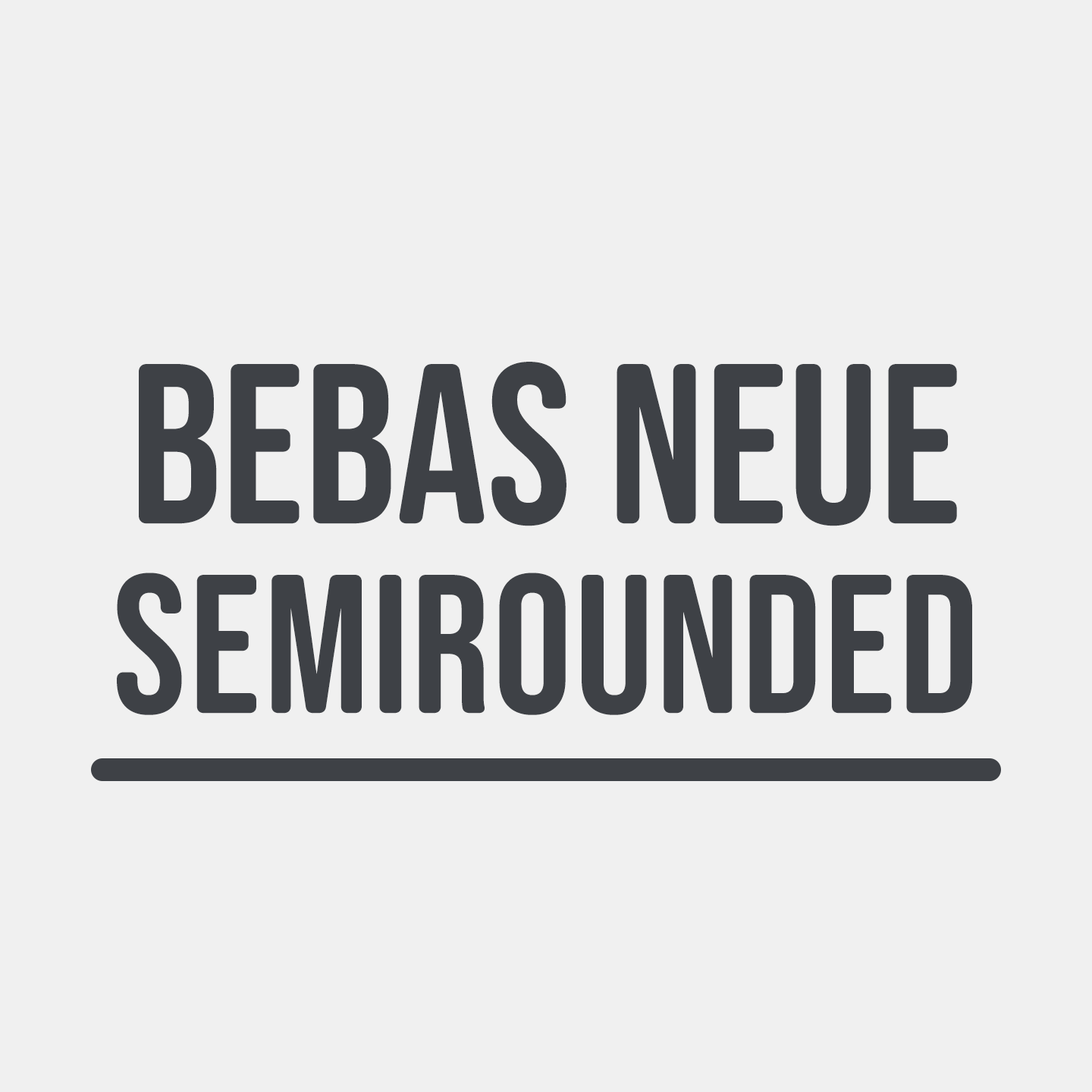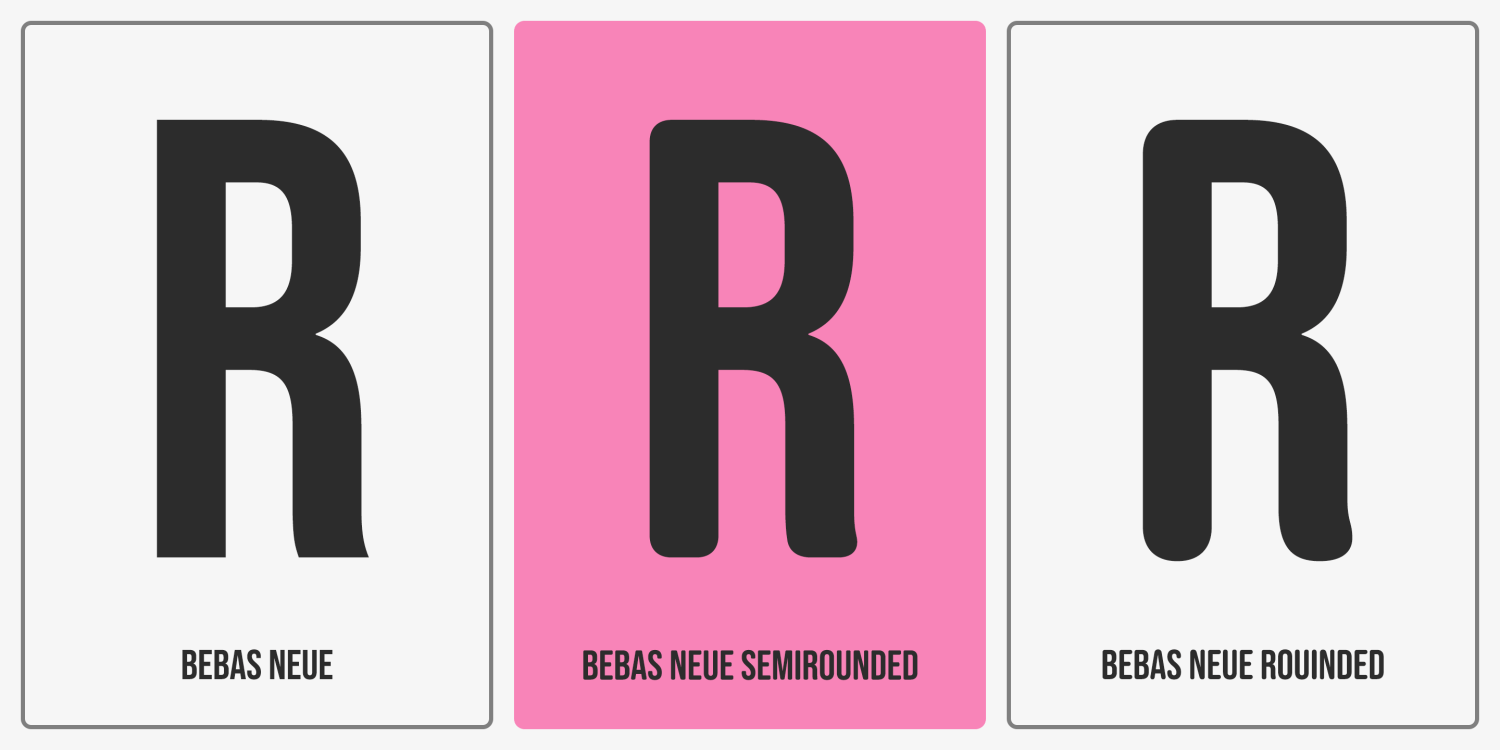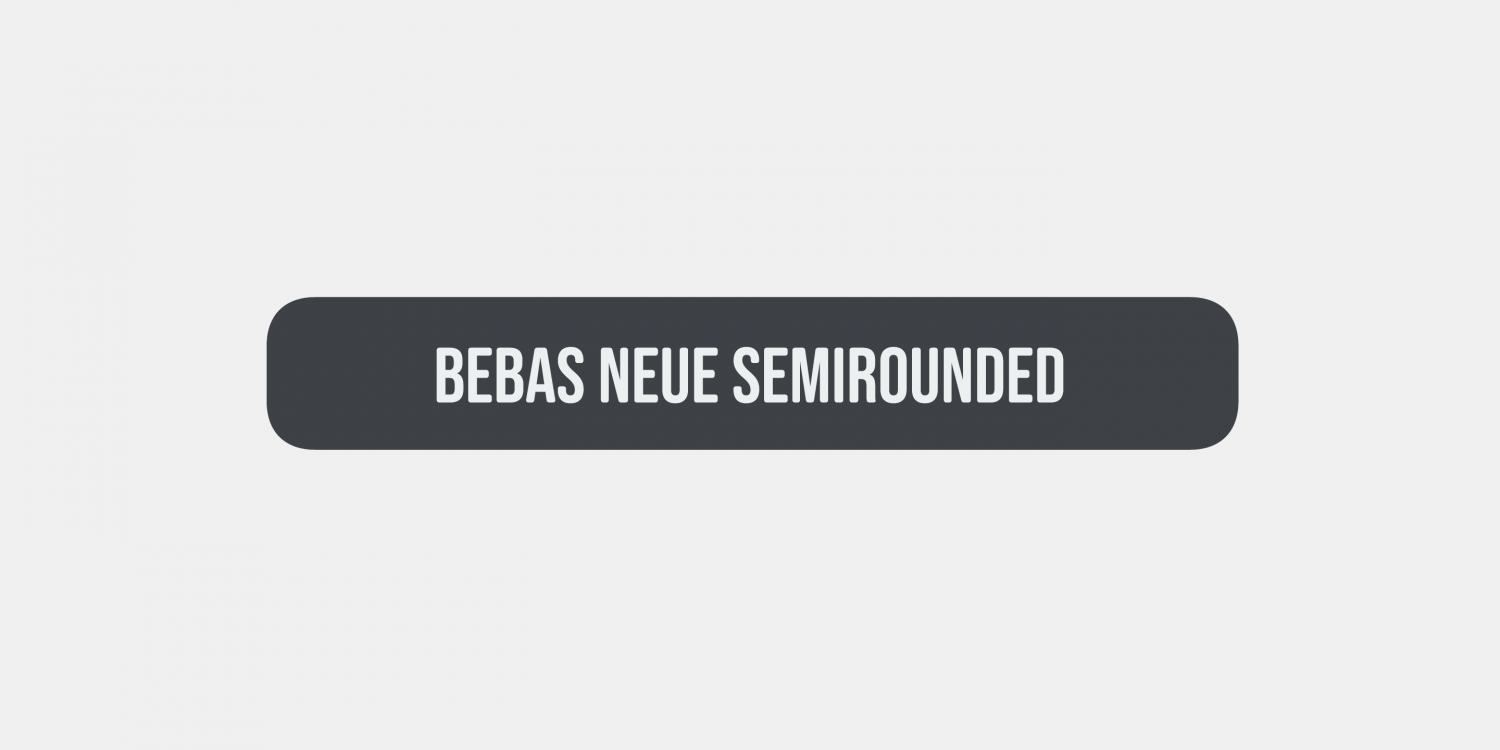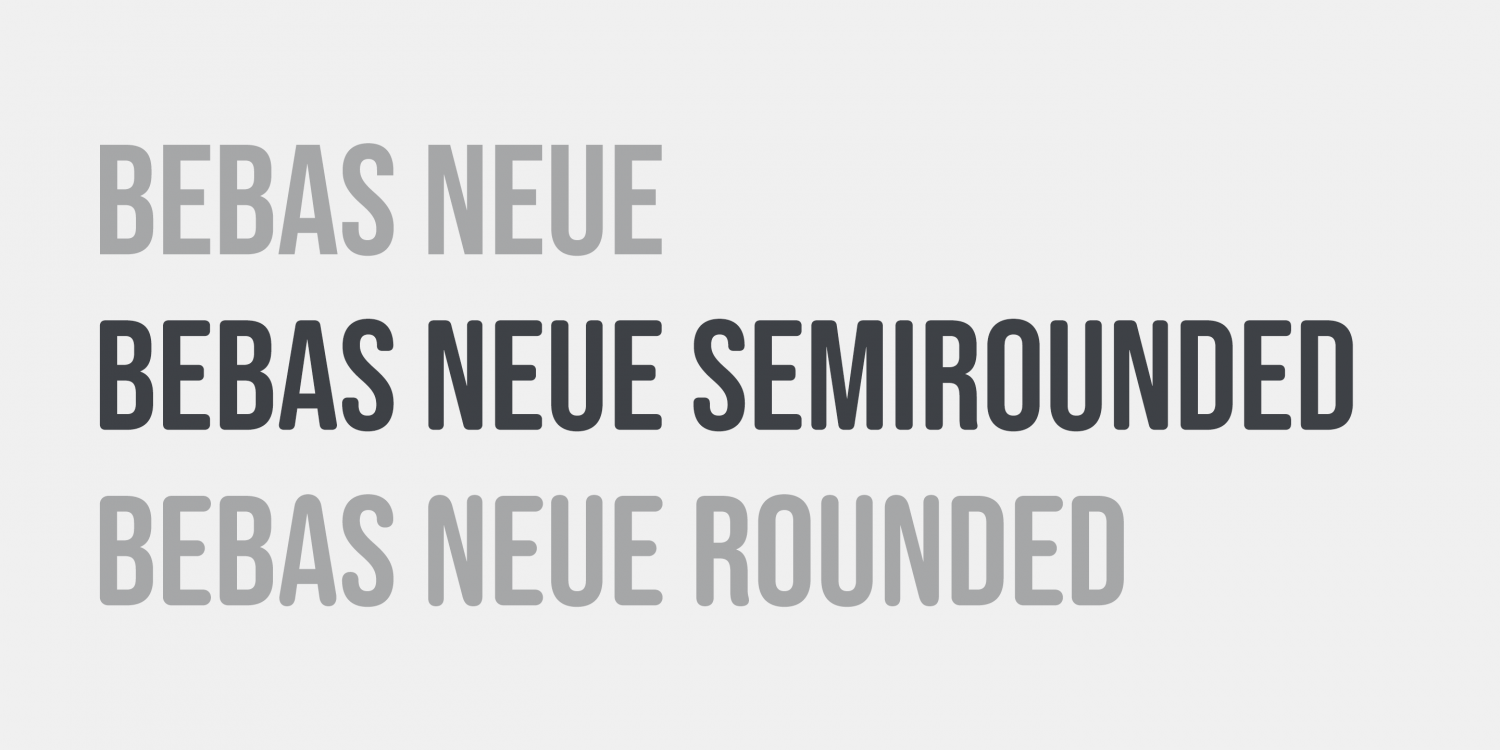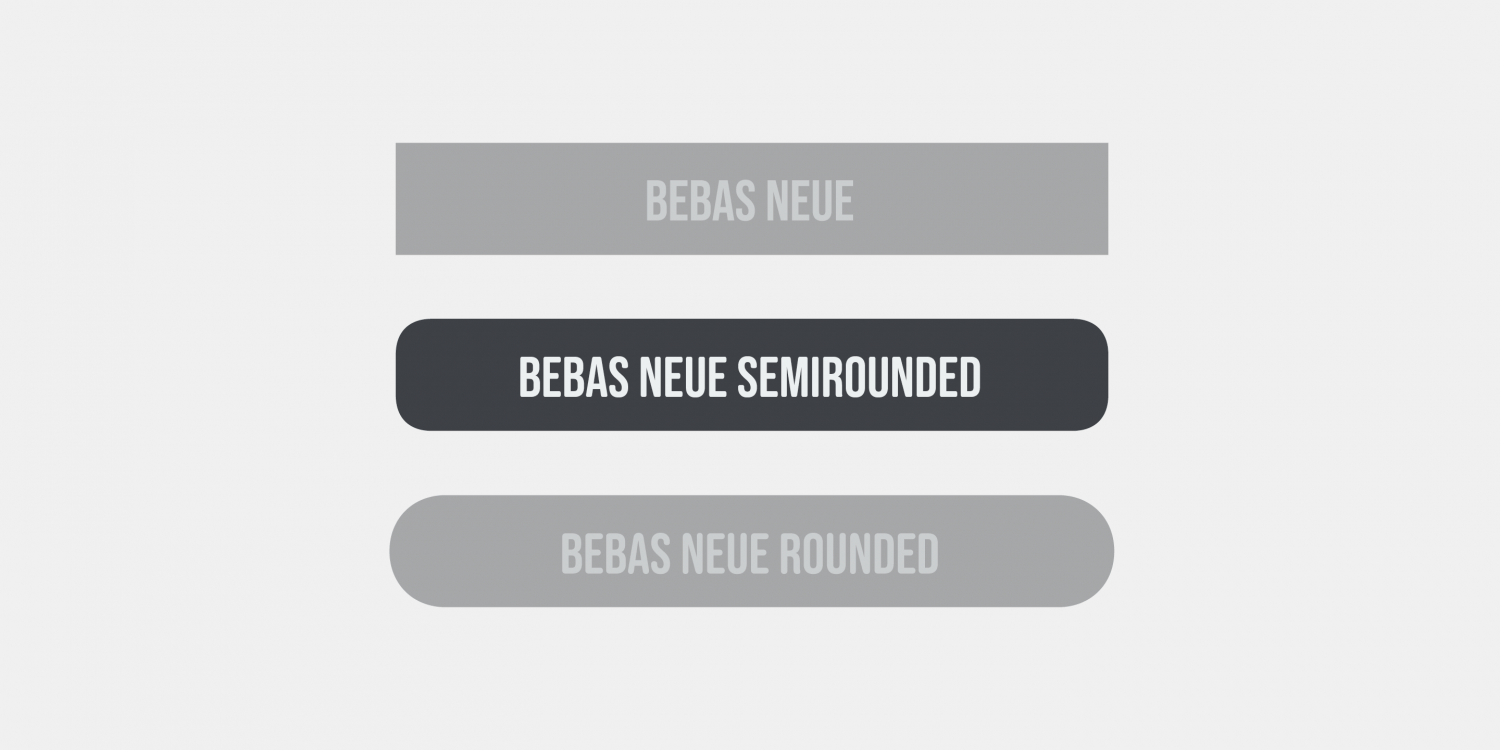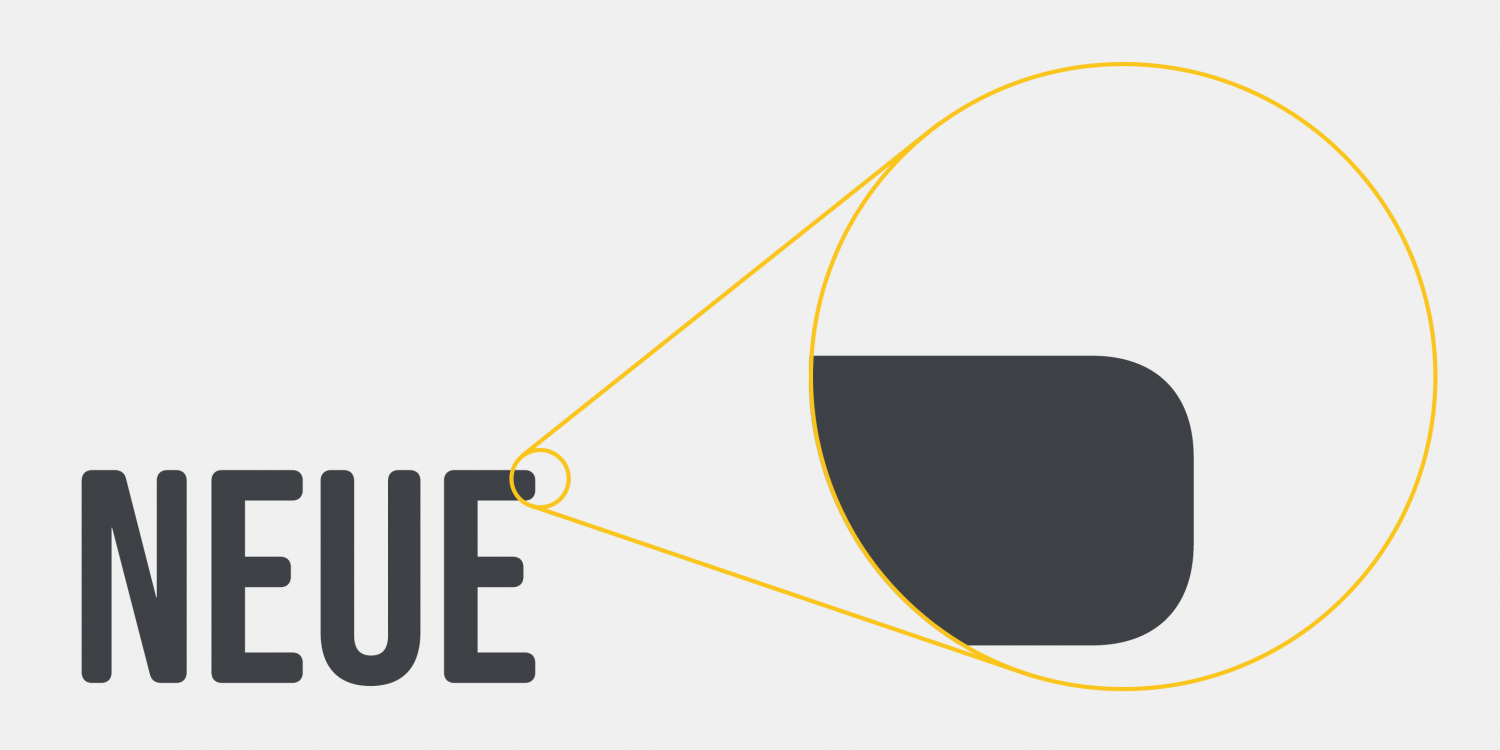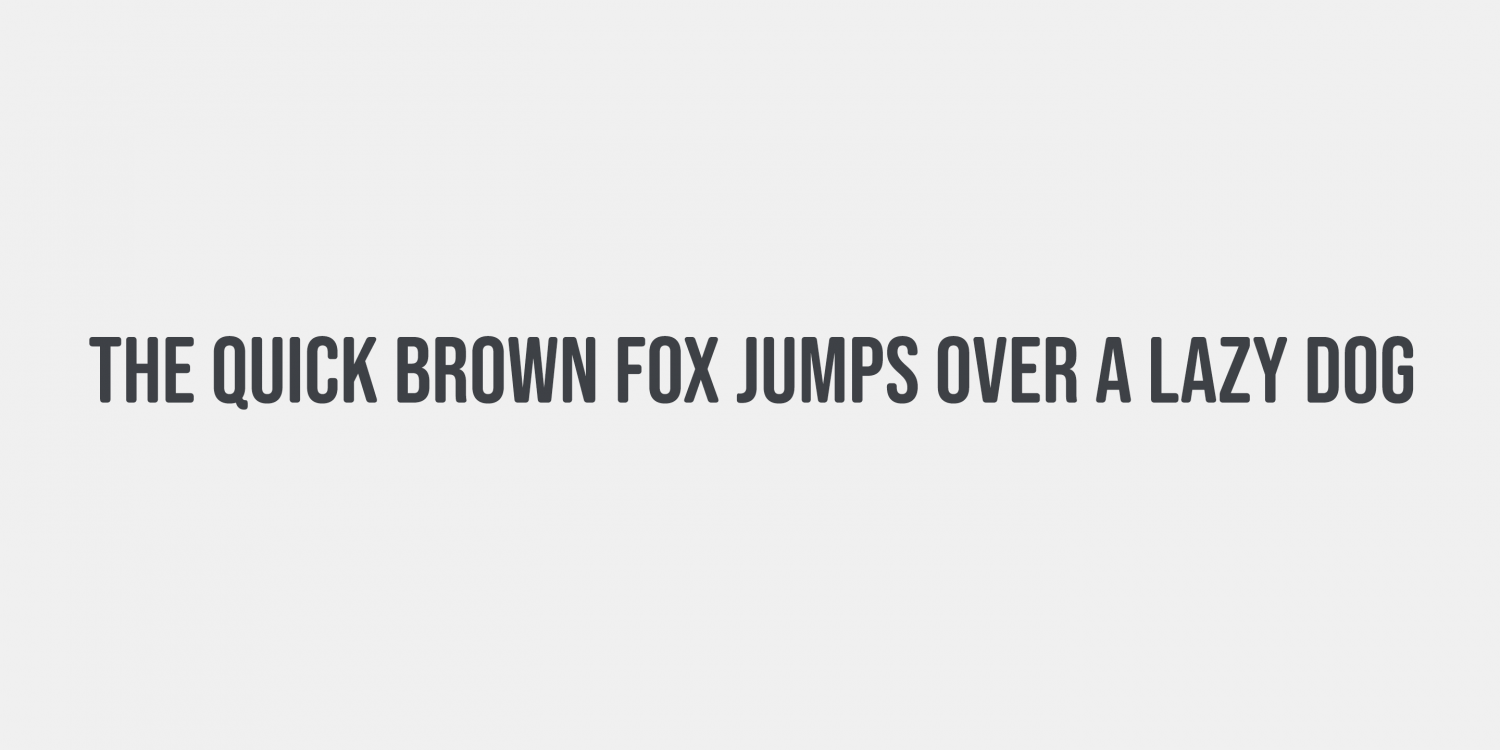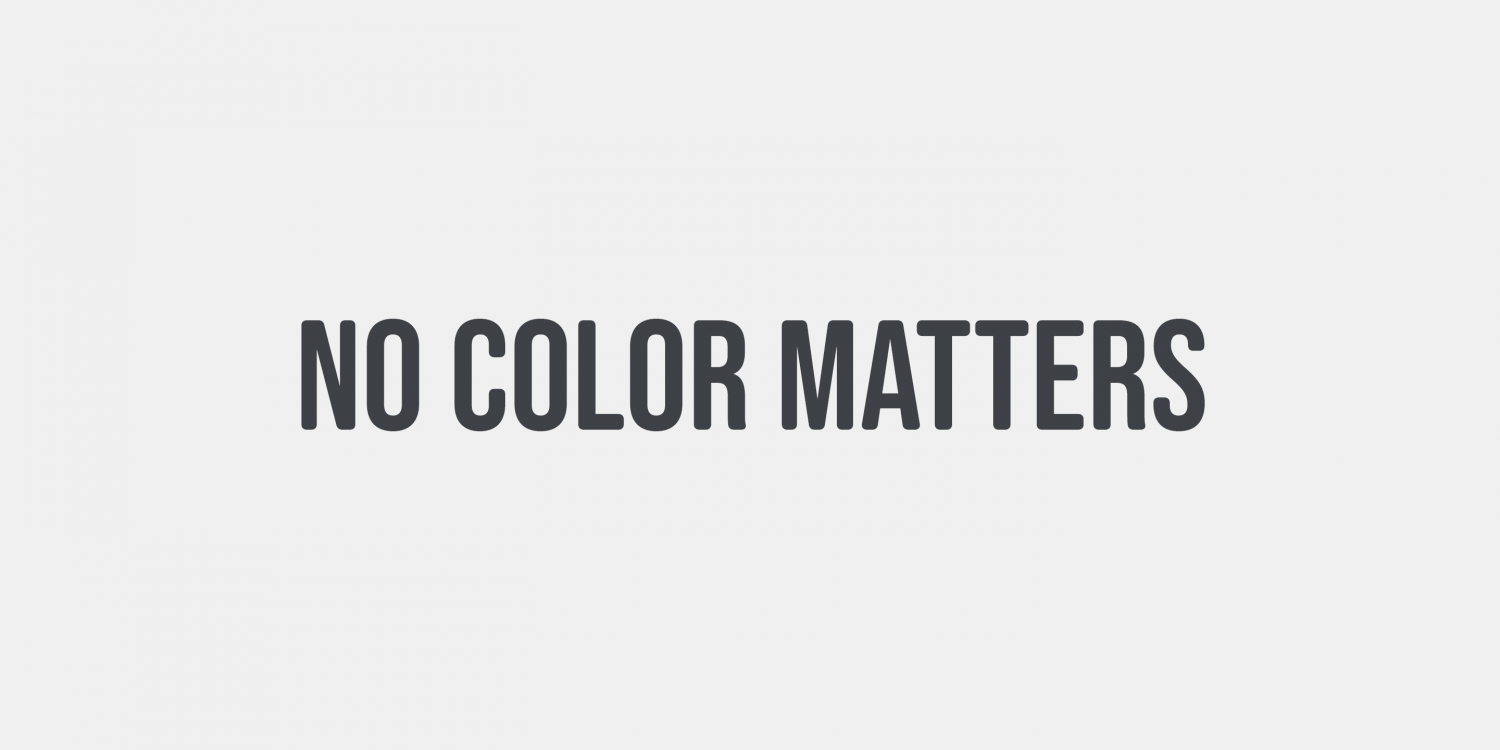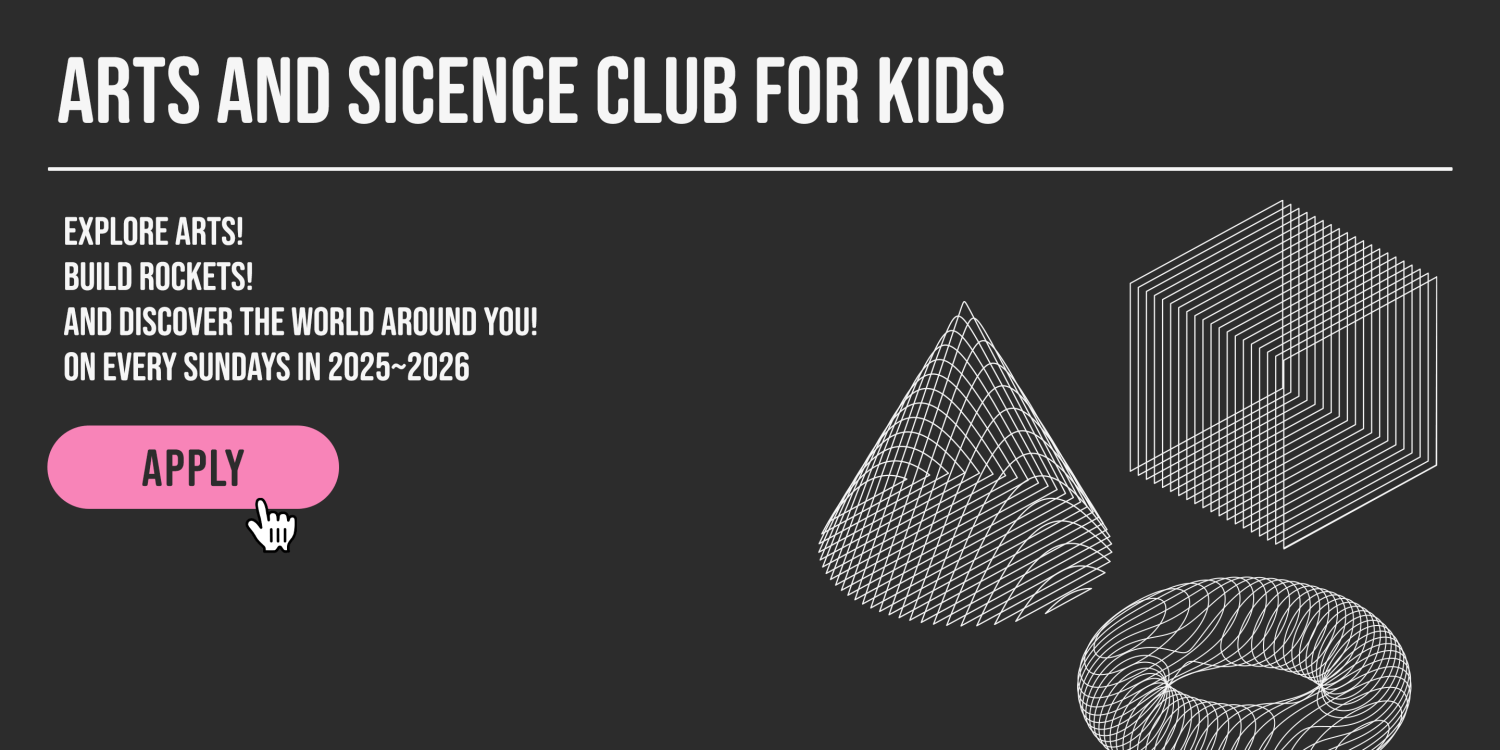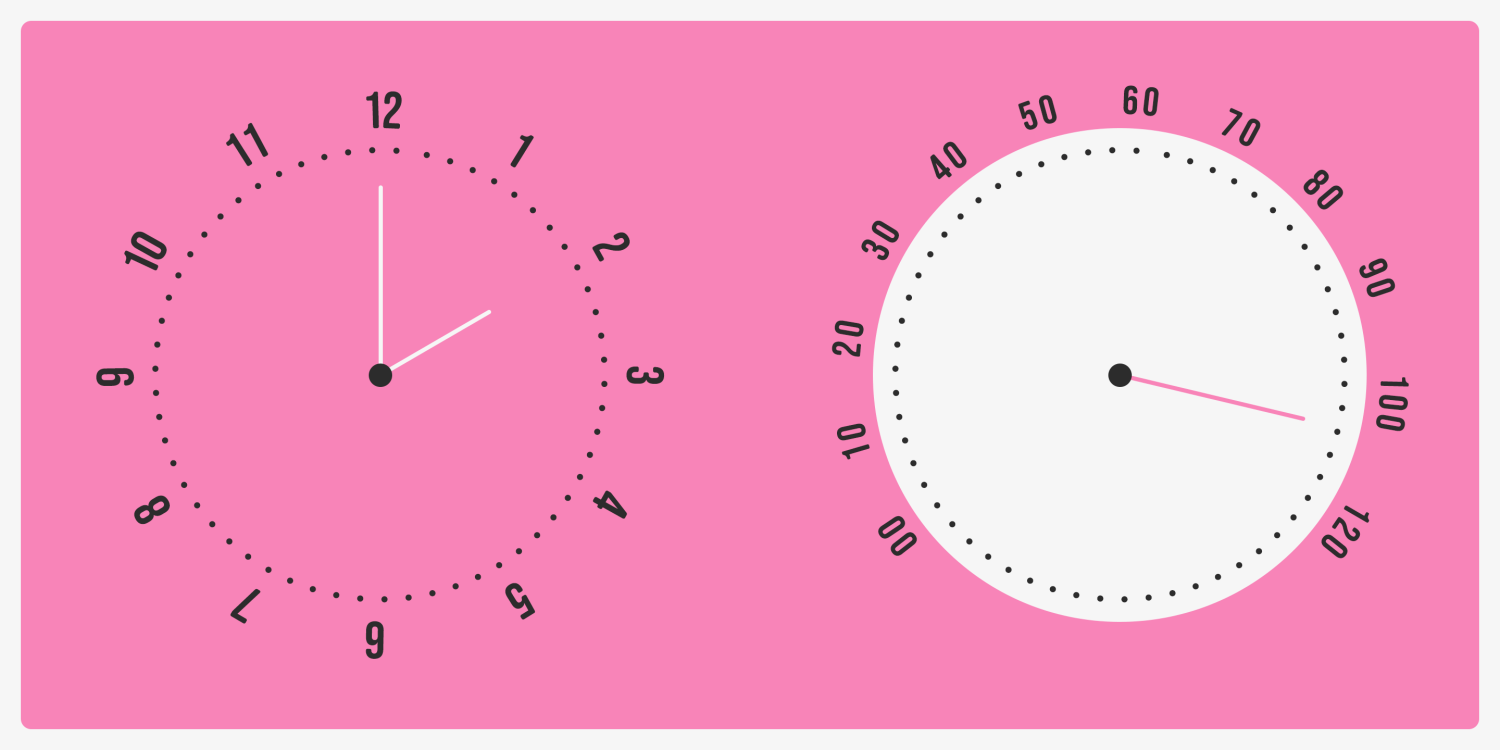
Bebas Neue Semi Rounded
Bebas Neue SemiRounded is a softened variation of the widely popular Bebas Neue typeface, featuring subtly rounded corners for a warmer, more natural look.
While maintaining the same structure and proportions as the original, this semi-rounded style introduces a gentler, more approachable tone, making it suitable for a broader range of design applications.
Positioned stylistically between the original Bebas Neue and the fully softened Bebas Neue Rounded, it offers a balance of strength and softness—a perfect fit for modern branding, headlines, and display typography.